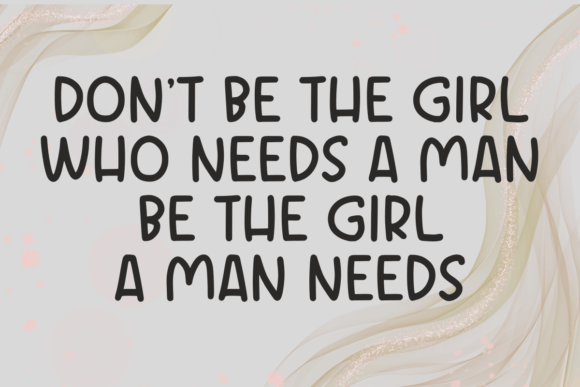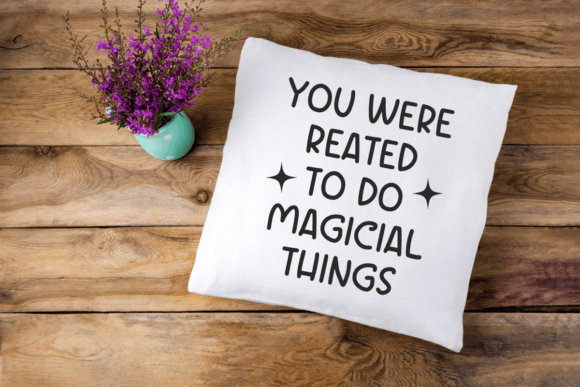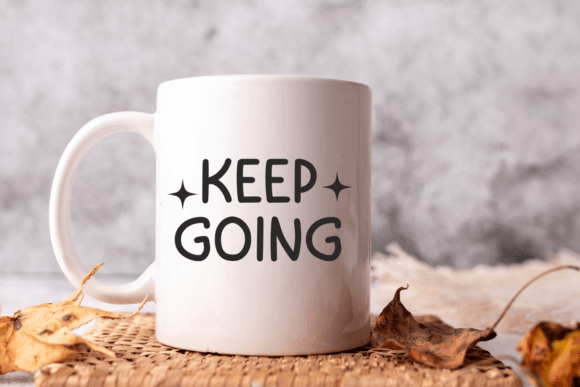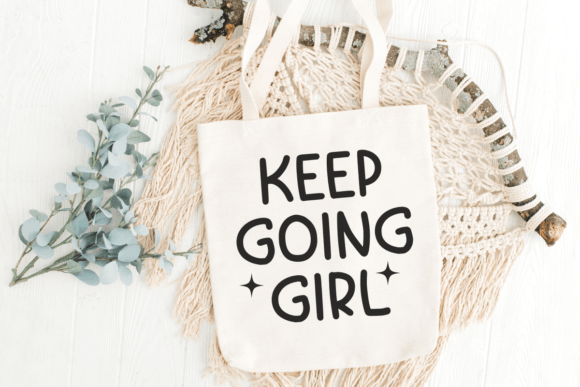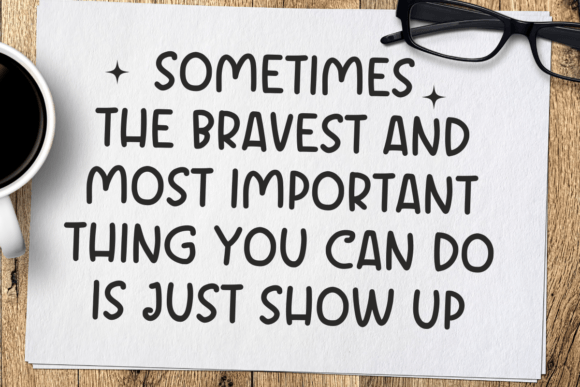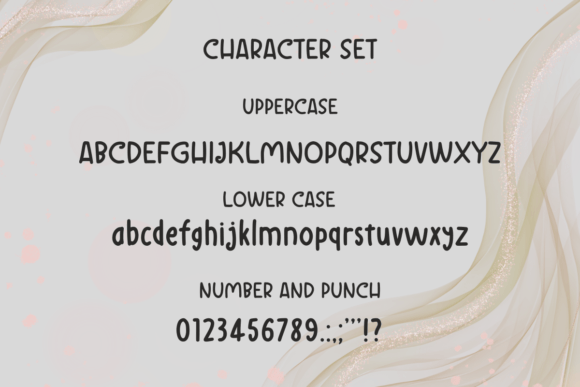
The Girly Font: A Cute and Playful Handwritten Delight
I’ll never forget the time I was working on a craft project for a client’s baby shower invitation. I had the design concept all sorted out, but I was stuck on finding the perfect font. The invitation needed to be playful, yet elegant, and I just couldn’t seem to find a font that fit the bill. That’s when I stumbled upon the Girly font. It was love at first sight! 💕
In this article, we’ll dive into the world of Girly, a cute and playful handwritten font that’s perfect for all your creative craft needs. We’ll explore its features, how to use it on different platforms, and even look at some similar fonts you might enjoy.
An Honest Review of Girly Font
What I Love About Girly Font
- ✨ Cute and playful: Girly font is perfect for projects that require a touch of whimsy and fun.
- ✅ Highly legible: Despite its playful nature, Girly font is surprisingly easy to read, making it suitable for both headings and body text.
- 💖 Versatile: Girly font can be used for a wide range of projects, from baby shower invitations to greeting cards, and even social media graphics.
While Girly font is an amazing addition to any design project, there are a few things to keep in mind:
- 🤔 Limited use for formal projects: Girly font is, by its nature, a playful font. It might not be the best choice for formal projects, such as business proposals or official documents.
- ⚠️ May not work well in small sizes: Like many script fonts, Girly font can become a bit tricky to read in very small sizes.
The Backstory of Girly Font
Girly font was designed with the intention of creating a playful and feminine handwritten font. The designer wanted to create a font that would be perfect for craft projects, party invitations, and social media graphics. With its cute and whimsical personality, Girly font is sure to bring a touch of fun and personality to any design project.
| Font Name | Girly Font |
| Author | SiapGraph |
Q: What type of projects is Girly font best suited for?
A: Girly font is perfect for craft projects, party invitations, social media graphics, and any other project that requires a touch of whimsy and fun.
Q: Is Girly font easy to read?
A: Yes, Girly font is surprisingly easy to read, despite its playful nature. However, it may not be the best choice for very small font sizes or body text.